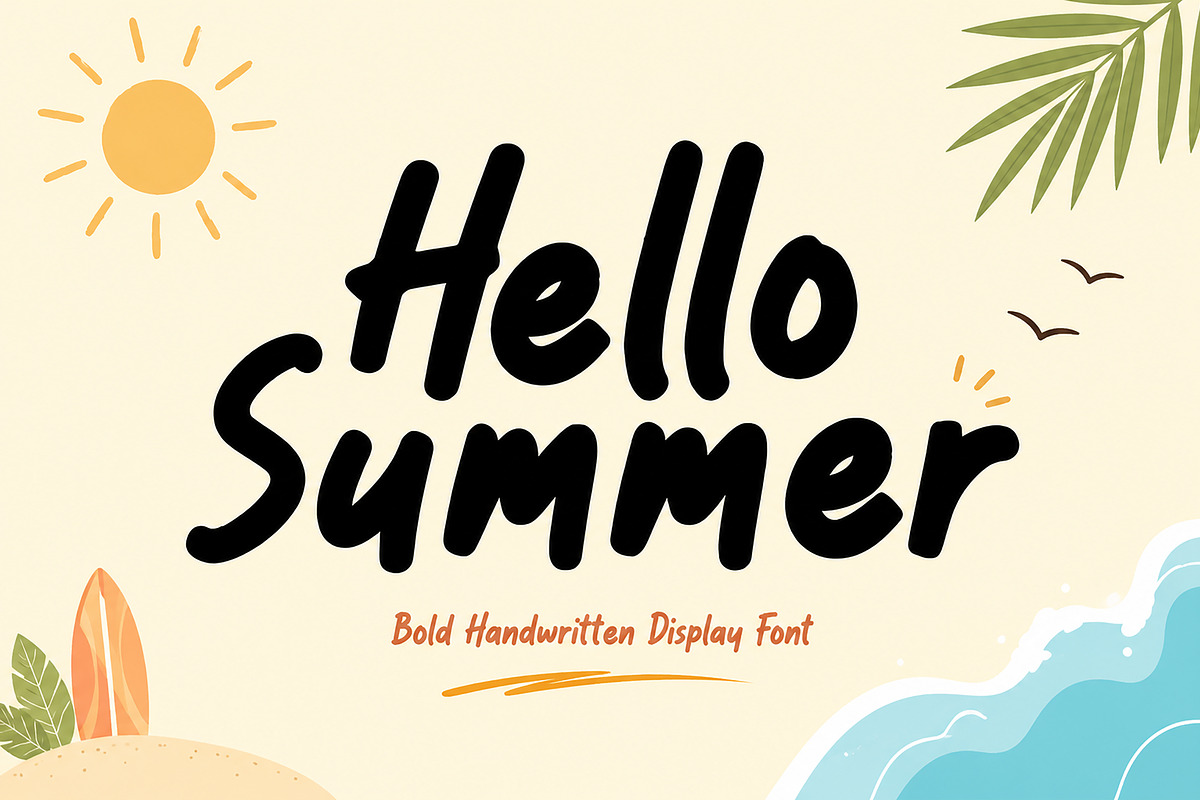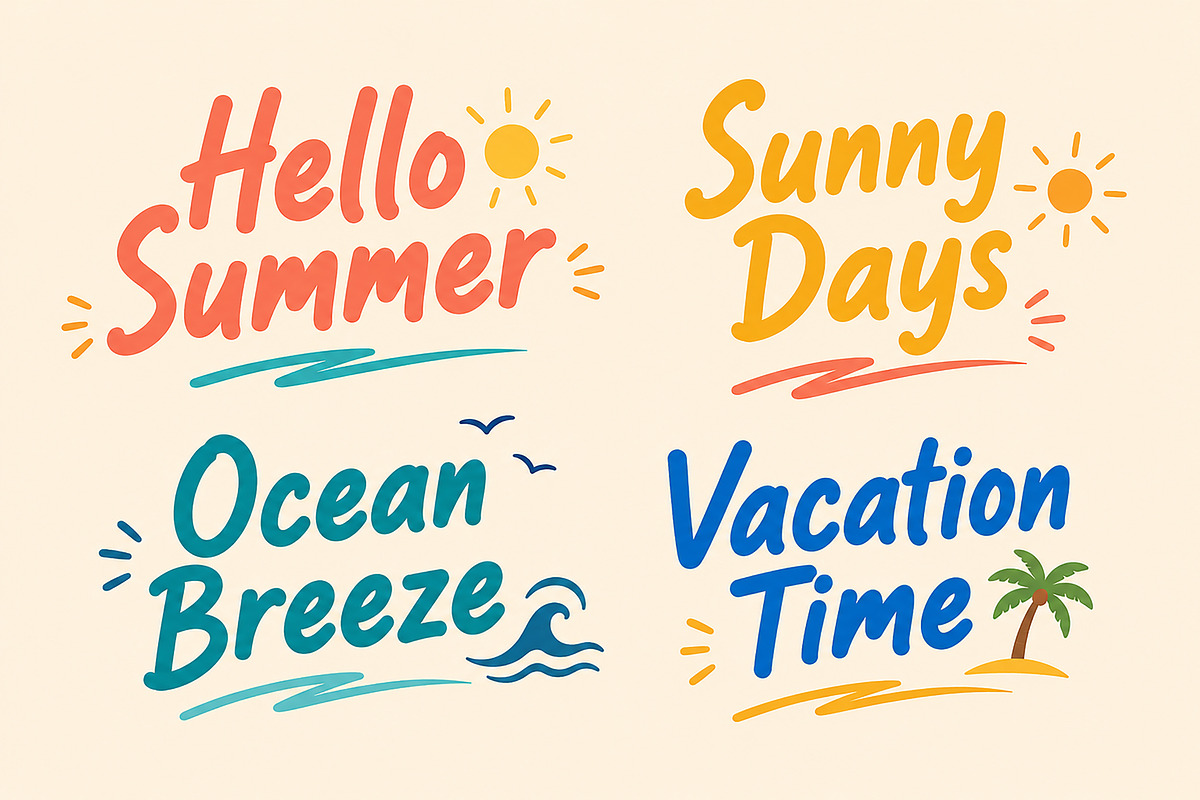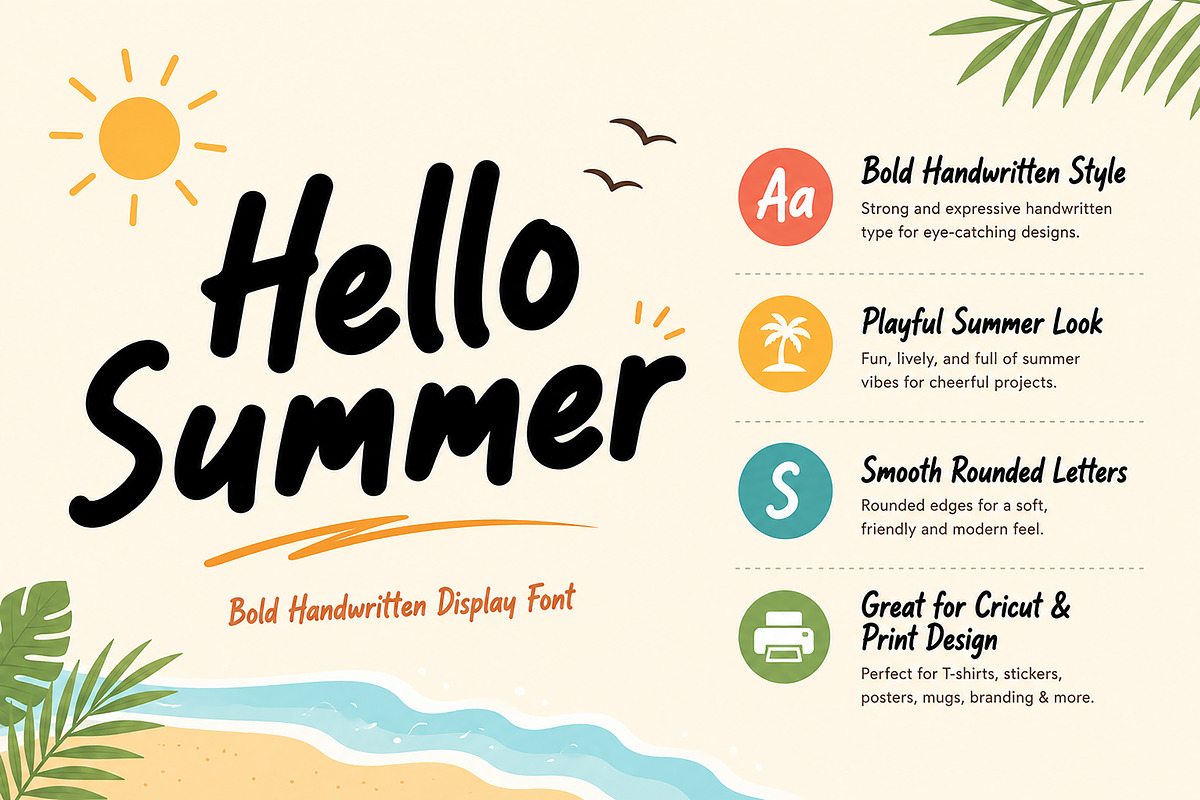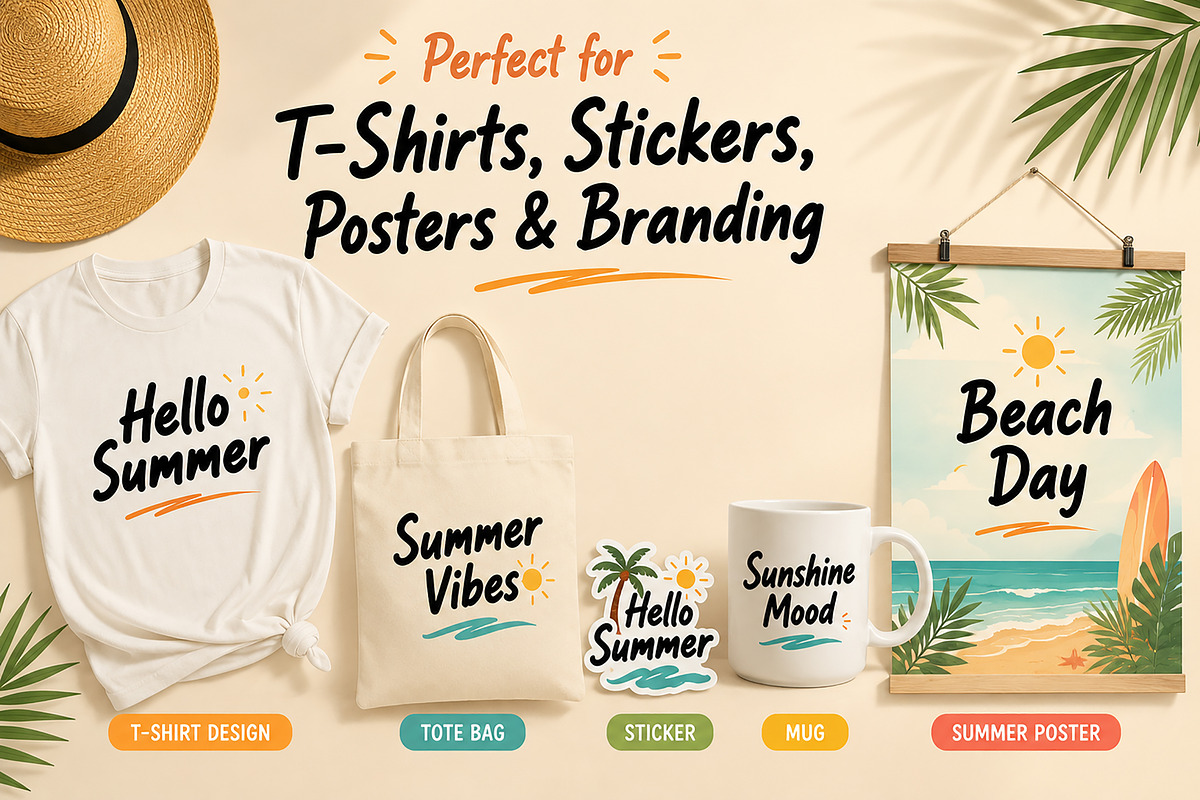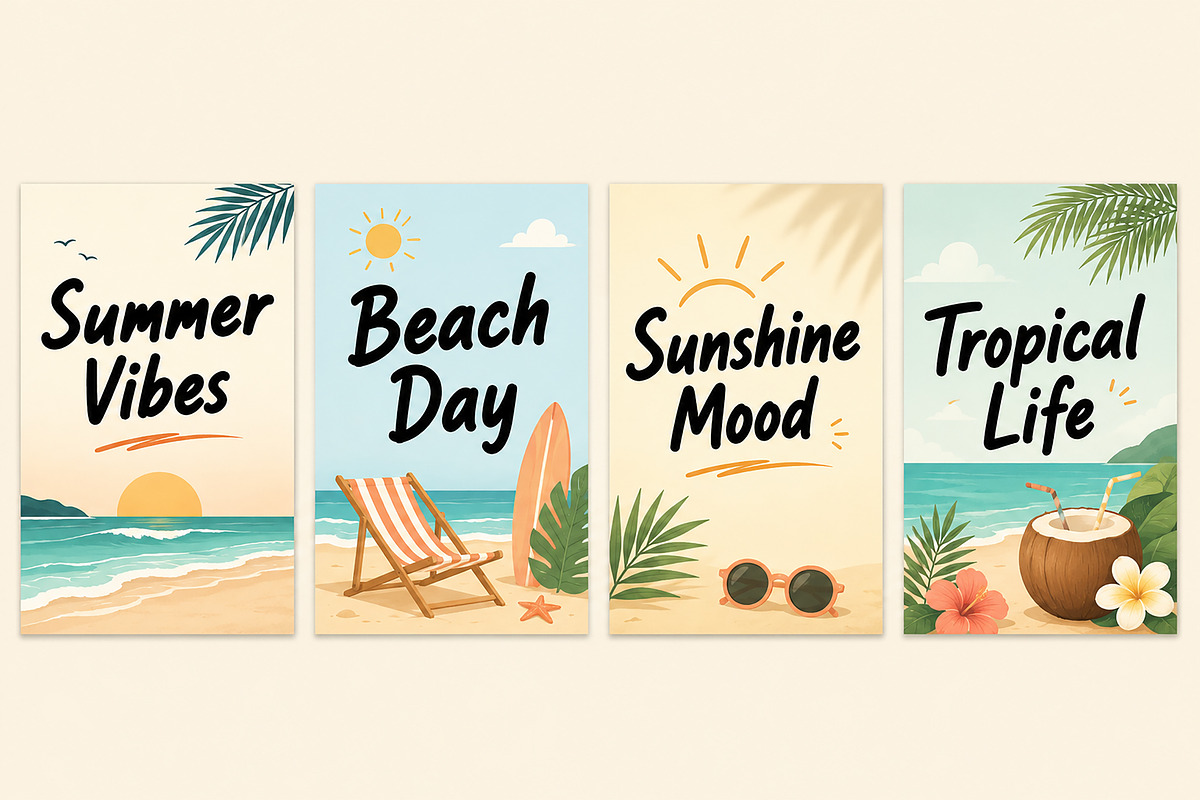
Hello Summer
Hello Summer – Bold Handwritten Display Font
Description
Bring the warmth of sunny days into your creative projects with Hello Summer, a bold handwritten display font full of fun, energy, and personality. Designed with smooth rounded strokes and a relaxed handwritten style, this font delivers a cheerful, modern look that's perfect for seasonal branding, vacation-themed designs, and eye-catching typography.
Whether you're creating beach-inspired apparel, Cricut projects, social media graphics, posters, stickers, mugs, or party decorations, Hello Summer adds a fresh and playful touch to every design. Its bold letterforms ensure excellent readability while maintaining a friendly, handcrafted feel that stands out on both print and digital media.
Perfect for summer collections, tropical branding, DIY crafts, and creative merchandise, this versatile display font is ready to brighten your next project.
Bold Handwritten Display Font
Smooth Rounded Letterforms
Fun & Playful Summer Style
Easy to Read
Perfect for Print & Digital Projects
Great for Cricut, Silhouette & Crafting
Ideal for Logos, Posters & Branding
Summer T-Shirts
Beach Posters
Stickers
Tote Bags
Mugs
Vacation Designs
Party Invitations
Branding
Greeting Cards
DIY Crafts
Sublimation Projects
Printable Designs